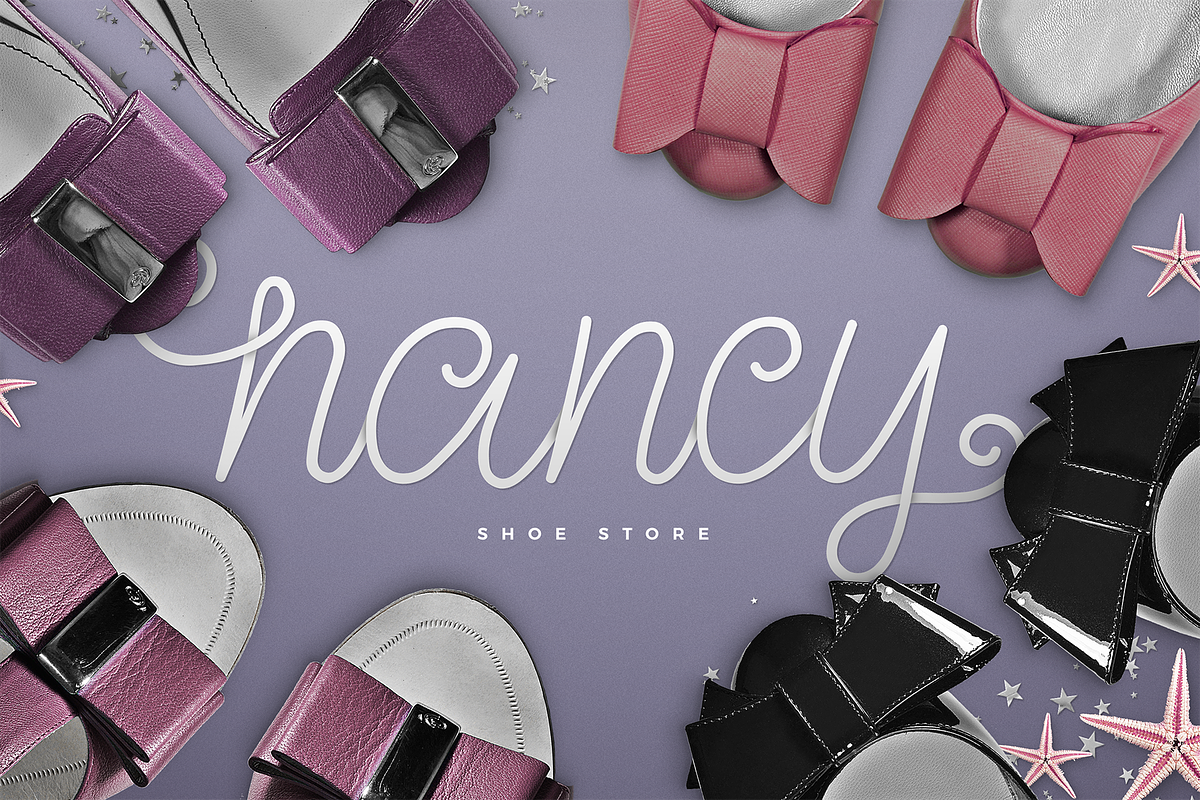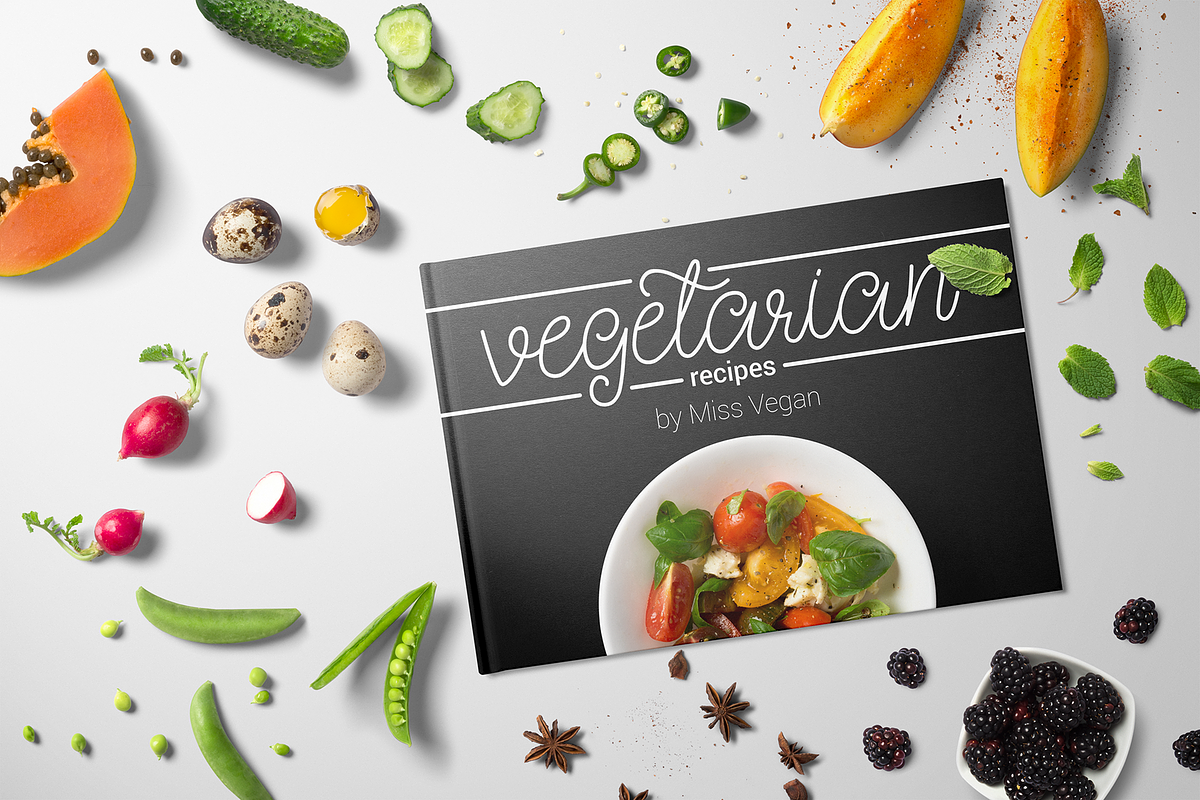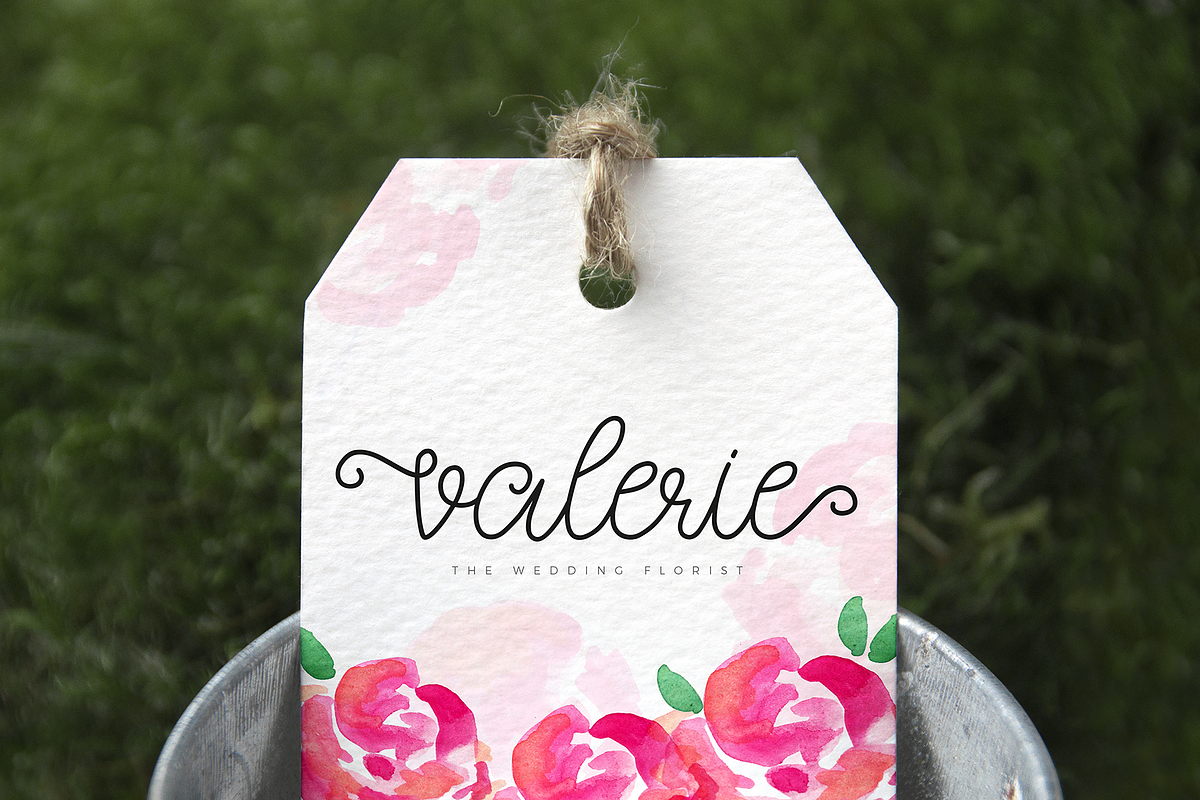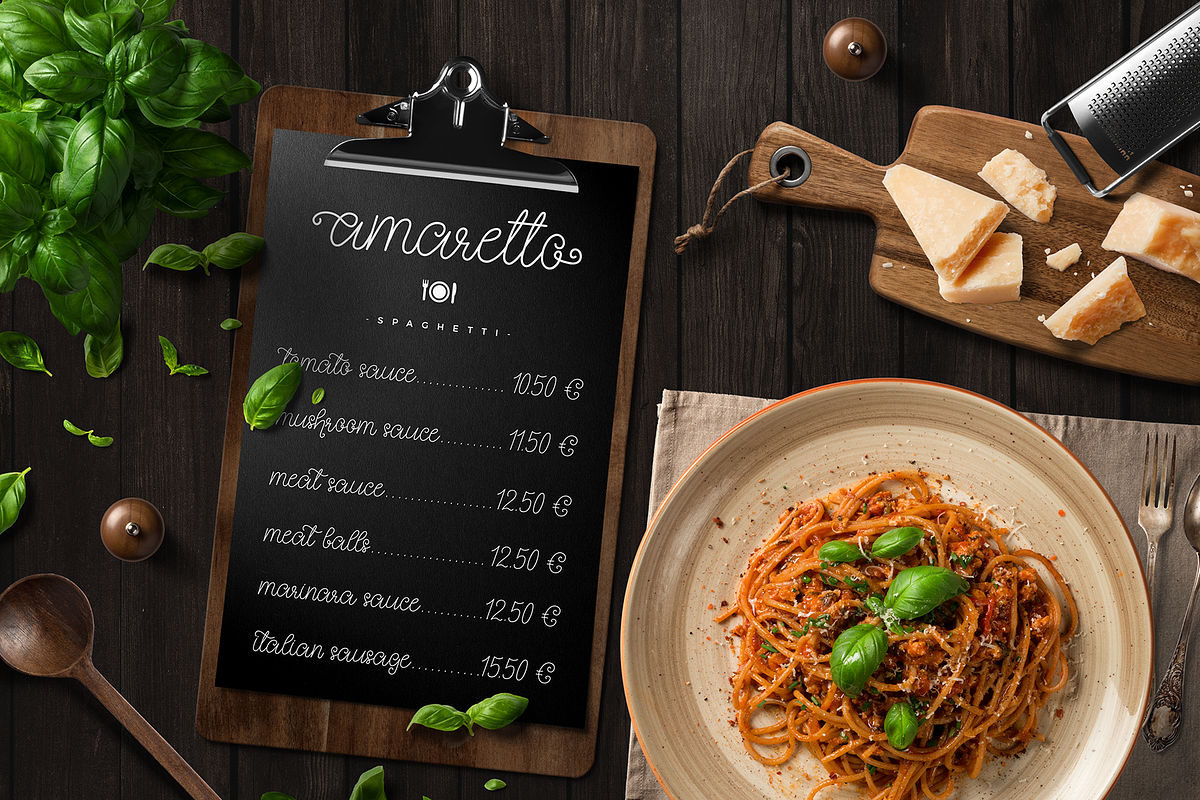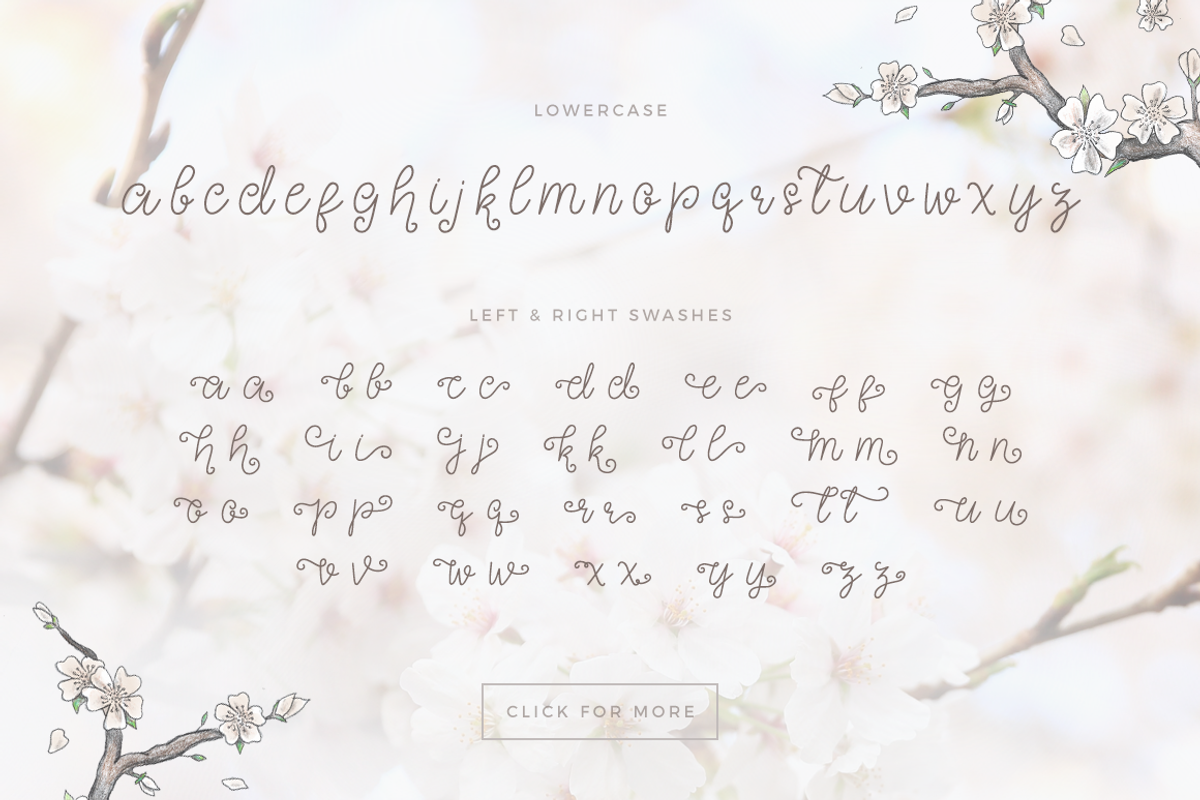
Celeia - Romantic font
Celeia - Romantic font by Junik Studio is a font selected for branding, posters, packaging, typography.
- Celeia is a modern romantic typeface that includes: Lowecase and uppercase letters Latin extended characters, basic currencies, punctations,
Celeia - Romantic font by Junik Studio fits naturally into Branding, posters, packaging, typography.